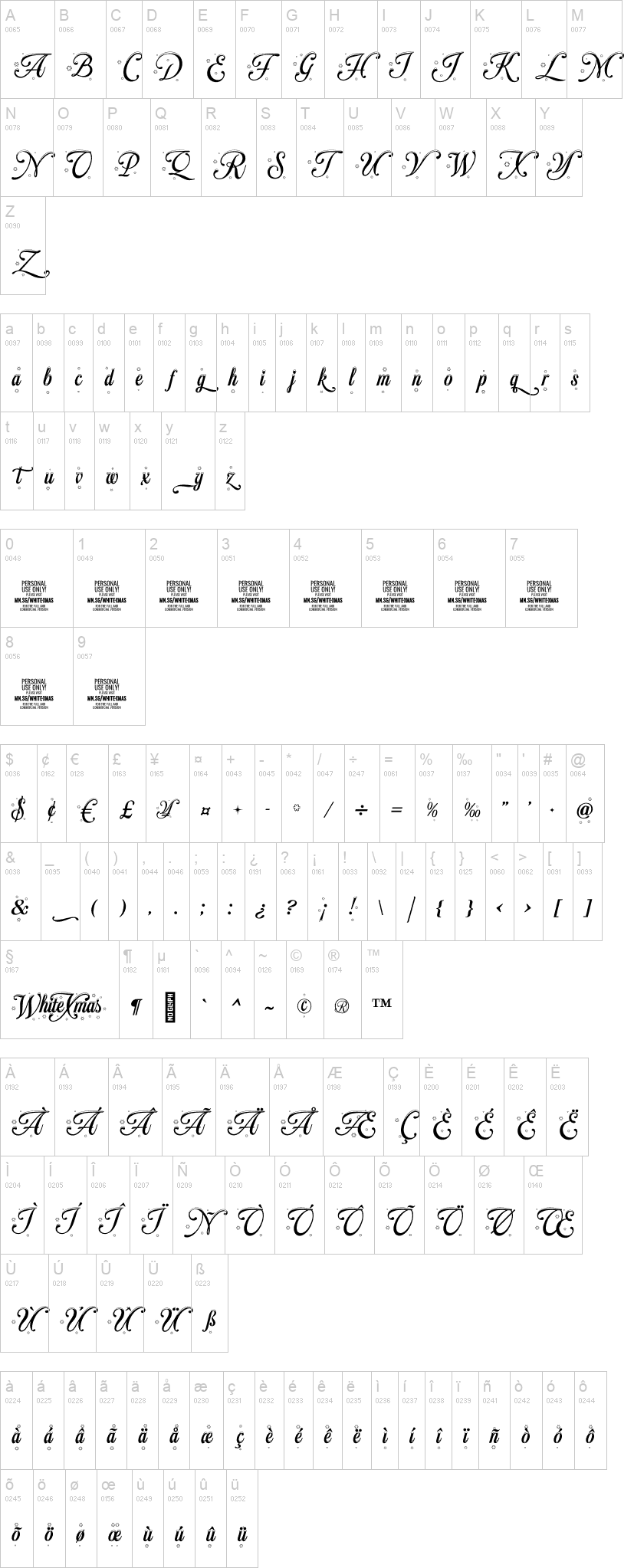
Use symbols * + # for stars and snowflakes.
Use underscore _ anywhere in a word to make a swash.
Example: Sea_son
Use multiple underscores for different swashes.
Example: Christ_______mas